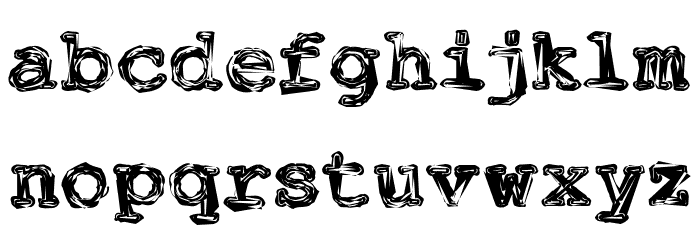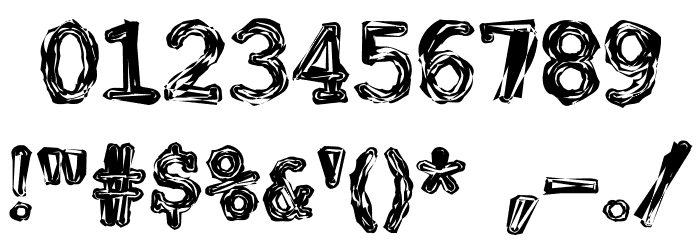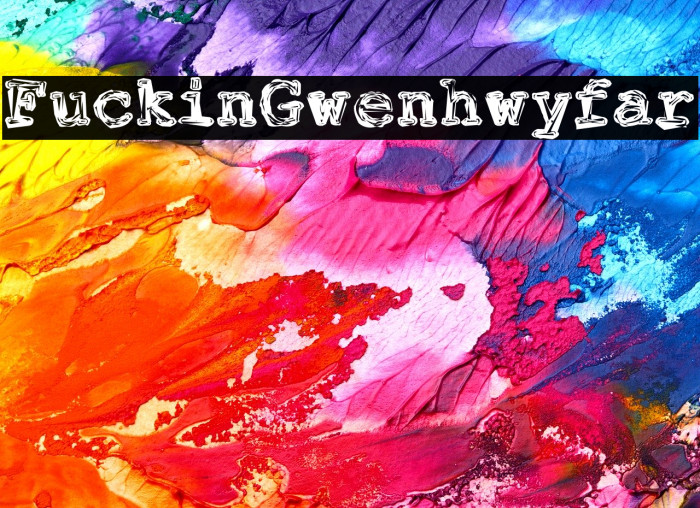
FuckinGwenhwyfar Font
This font features a bold, hand-drawn style with a playful and artistic flair. The characters are outlined with a thick, uneven stroke, giving them a dynamic and textured appearance. Each letter appears as if it has been sketched with a marker, adding a sense of movement and energy. The irregular edges and varying line thicknesses contribute to a casual and informal look, making it stand out in creative projects. The font includes a full set of uppercase and lowercase letters, numbers, and a variety of special characters, all maintaining the same distinctive style.
A bold, hand-drawn font with a playful and textured appearance.
- Font: FuckinGwenhwyfar